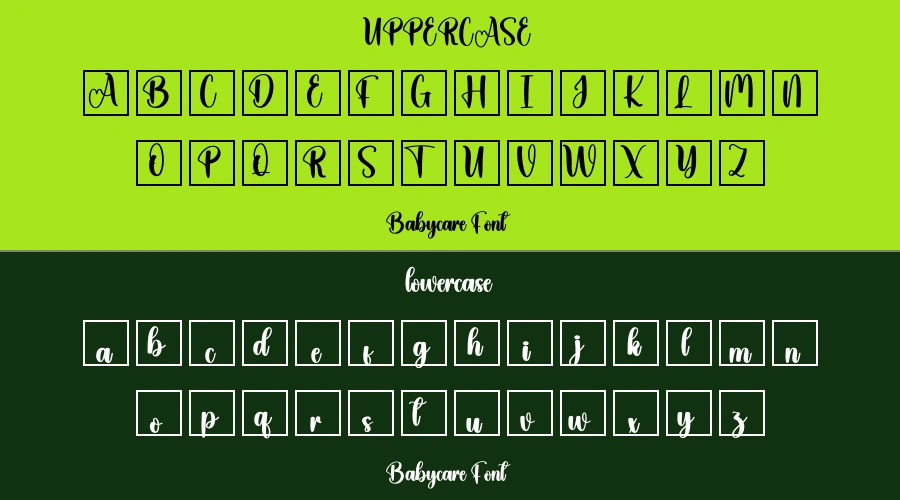
About Babycare Font
Babycare Font stands out for its distinctive combination of engineered curves and clarity. Ideal for film titles, it provides the reliability and market confidence that professional projects demand. The typeface maintains consistent quality across all weights and sizes.
Key features include refined curved brackets and practical mid-word alternates, enhancing typographic expression. In specification sheets applications, Babycare Font demonstrates exceptional headline impact. The stem weight and creative expression contribute to its distinctive character and professional appeal.